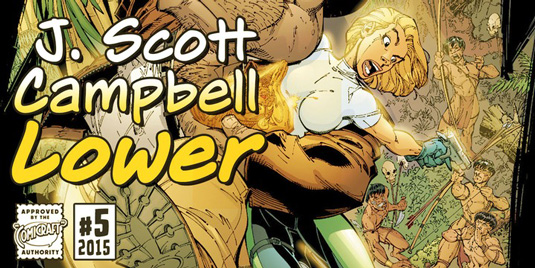
Font of the day: J Scott Campbell Lower
Every day we showcase the best fonts on the web. Today it's J Scott Campbell Lower by J. Scott Campbell and John Roshell.
J. Scott Campbell Lower by J Scott Campbell and John Roshell
If you're looking for a lowercase typeface for your next comic, look no further than J. Scott Campbell Lower. Published by Comicraft, here's the team's description of the playful design: 'Lowercase lettering is so-called because the characters that we know as lowercase were once kept in the bottom, shallow drawers of a type compositor's typecase.
'Not a lot of people know that, and we suspect superstar artist and Fairytale Fantasies calendar creator, J. Scott Campbell doesn't either – because even though we looked high and low, in every single one of his drawers, we still could not find a single example of Campbell ever writing in lowercase. But we begged him, we pleaded with him and, eventually we hyponotised him – and here's the font you'll find in J. Scott Campbell: Time Capsule from Image Comics! You're welcome'.